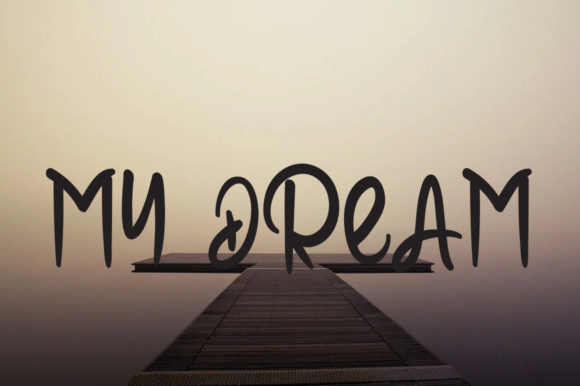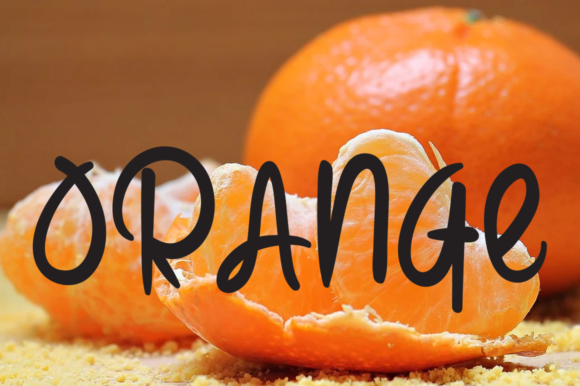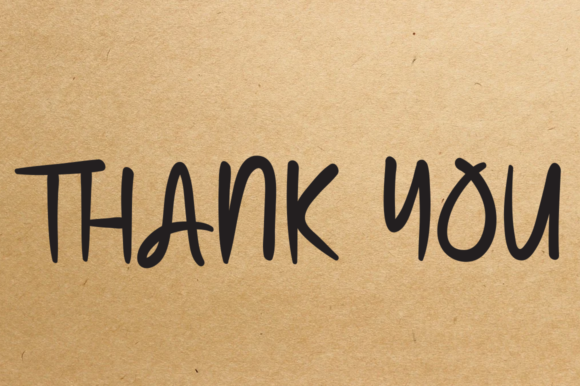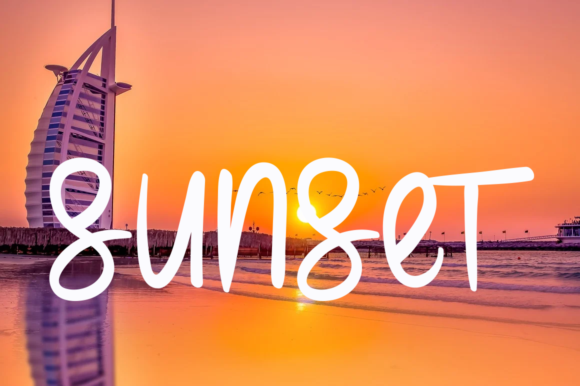
Ocean Font
About Ocean Font
Ocean is a cool and relaxed handwritten font. Add it to each of your party invitation, gathering or pretty much any design that requires a touch of youth and joy.